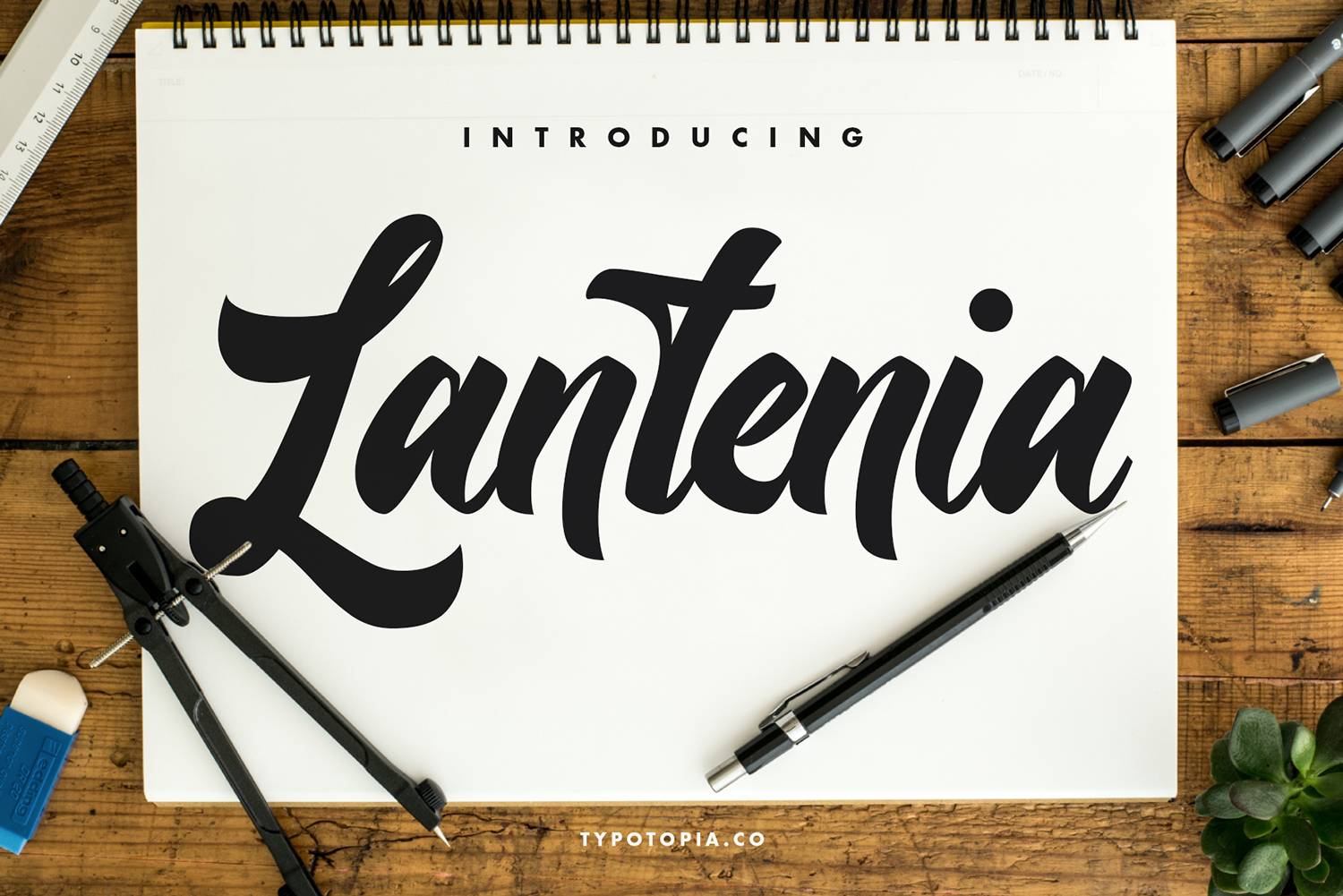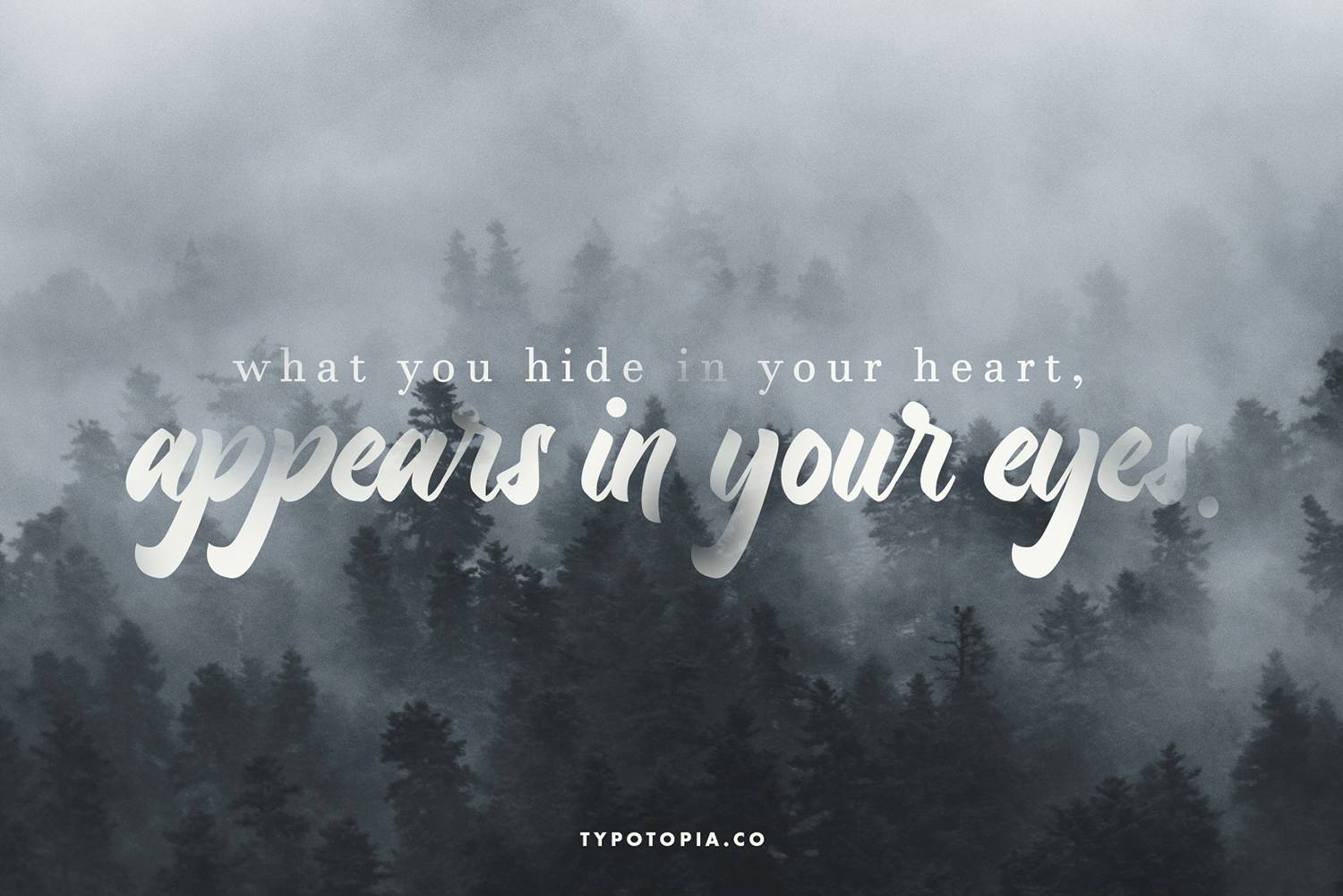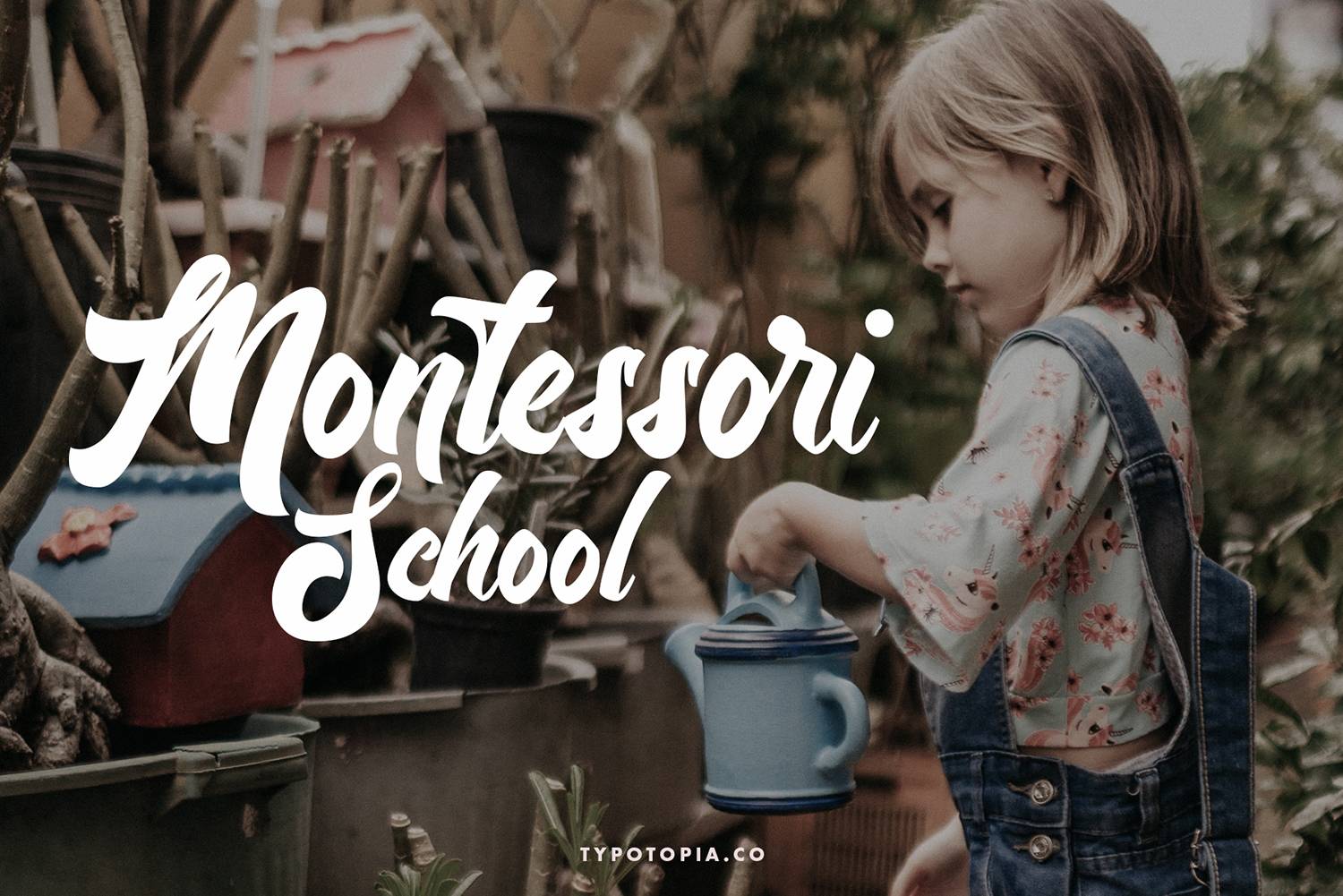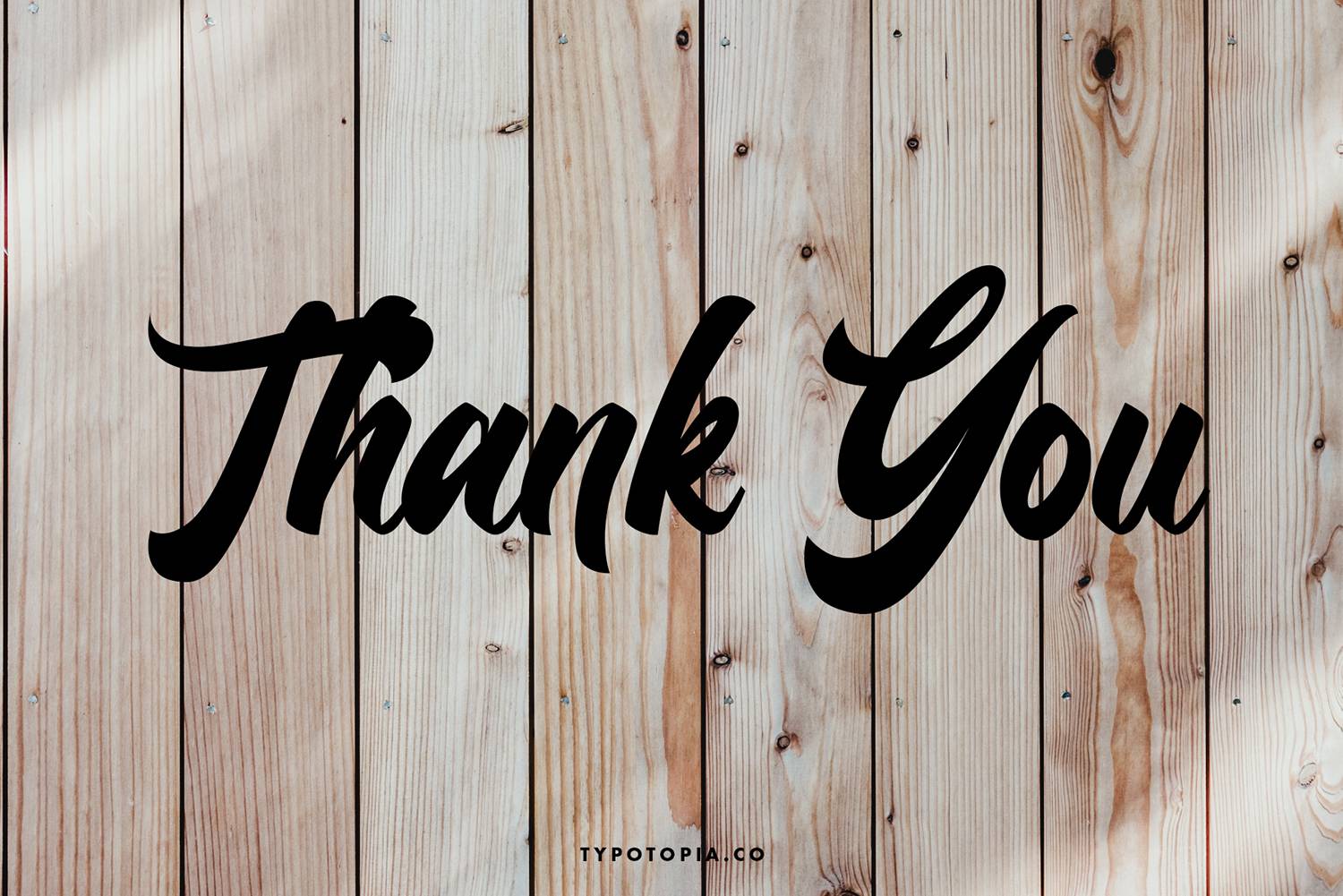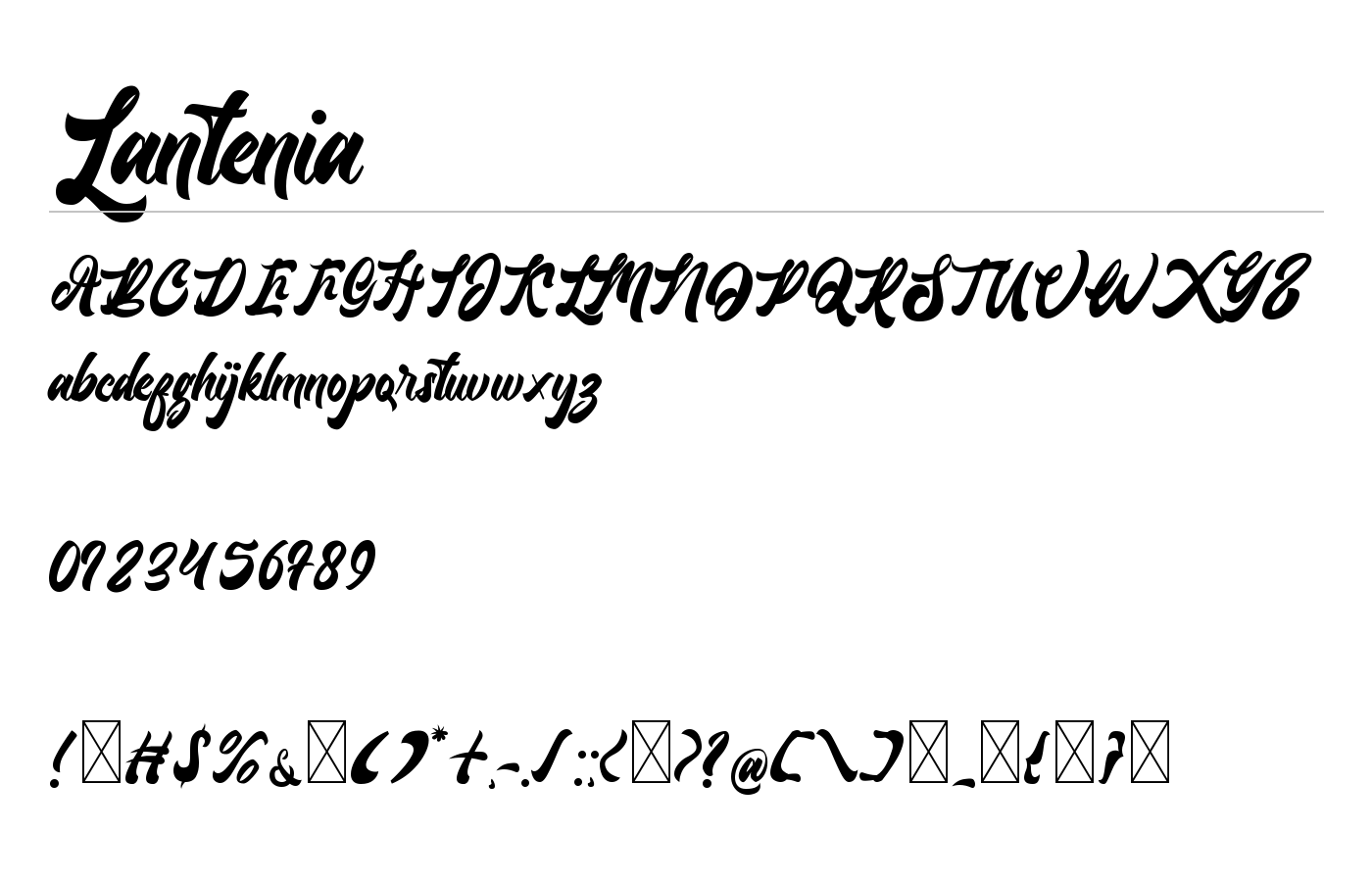
Lantenia is a bold, cursive script font with a lively and expressive style, featuring smooth, flowing strokes and a moderate x-height that enhances readability. Its thick, rounded letterforms and elegant swashes give it a warm, handcrafted feel, making it ideal for designs that need a personal and inviting touch, such as branding, invitations, and headlines. This font is perfect for adding a stylish and charismatic flair to projects that want to convey creativity and friendliness.
Lantenia Font
About Lantenia Font